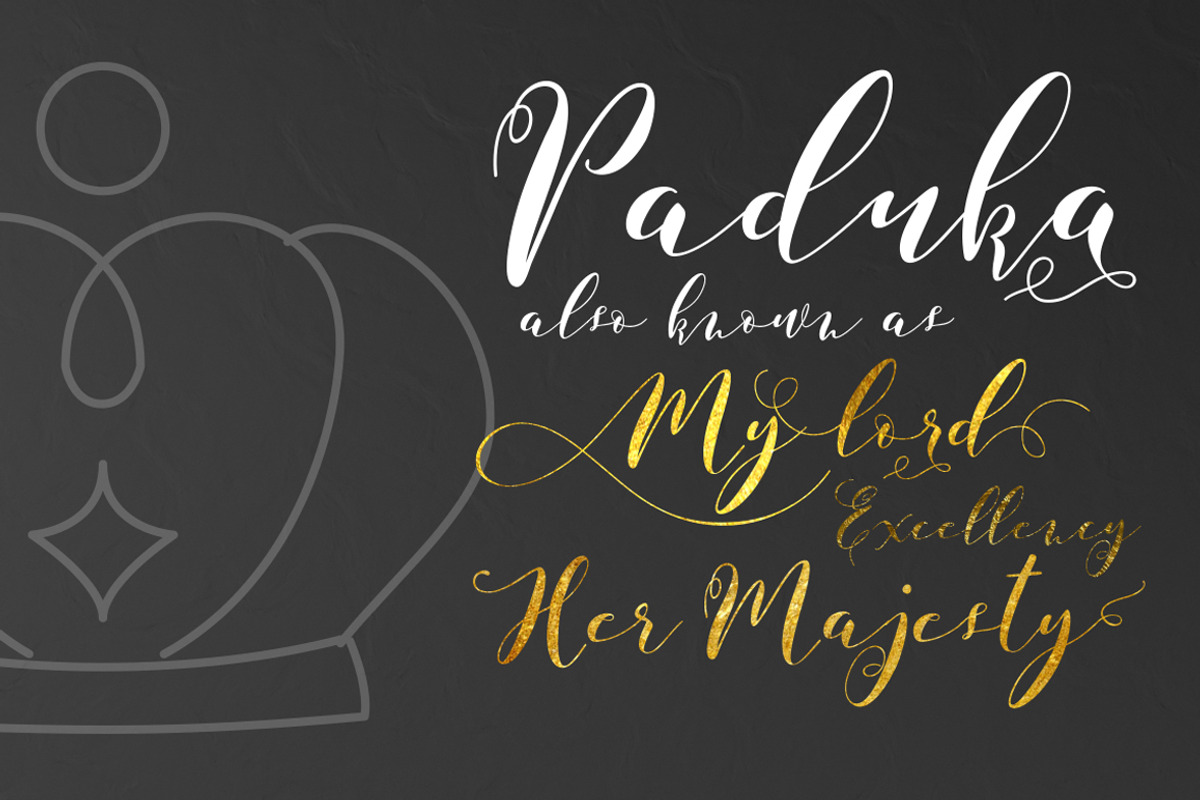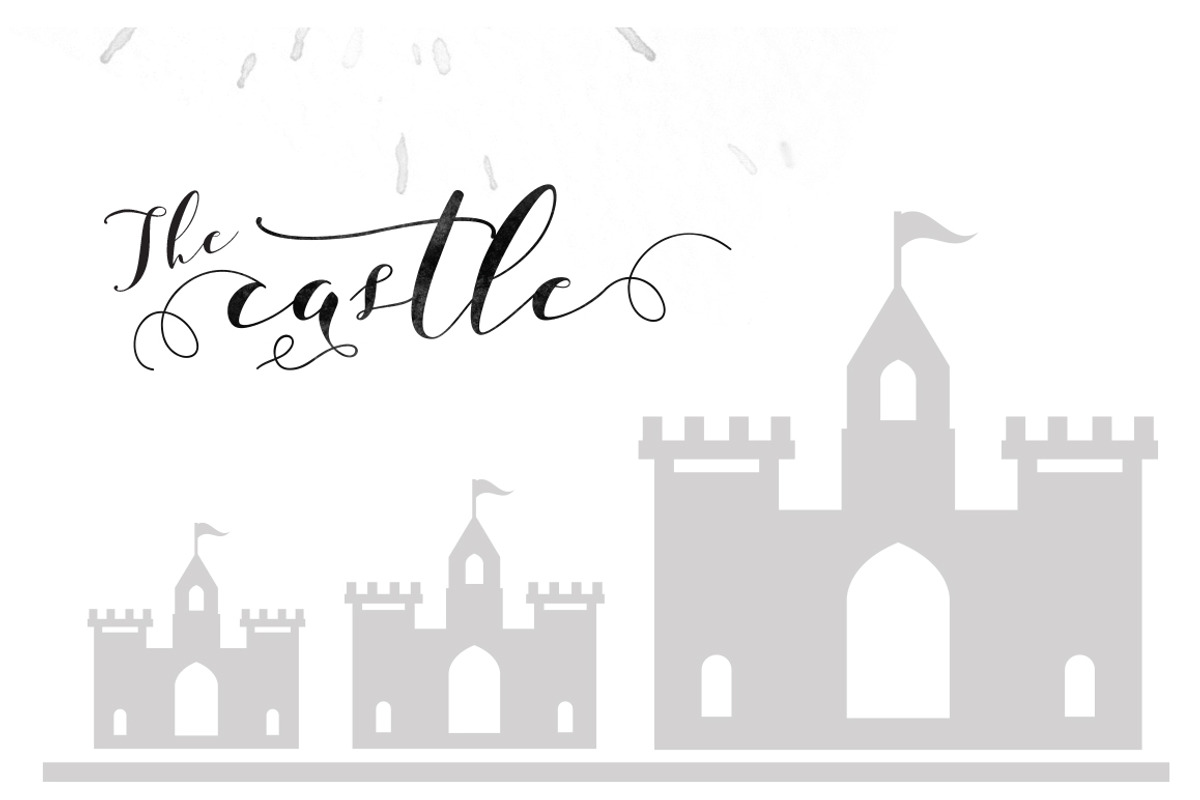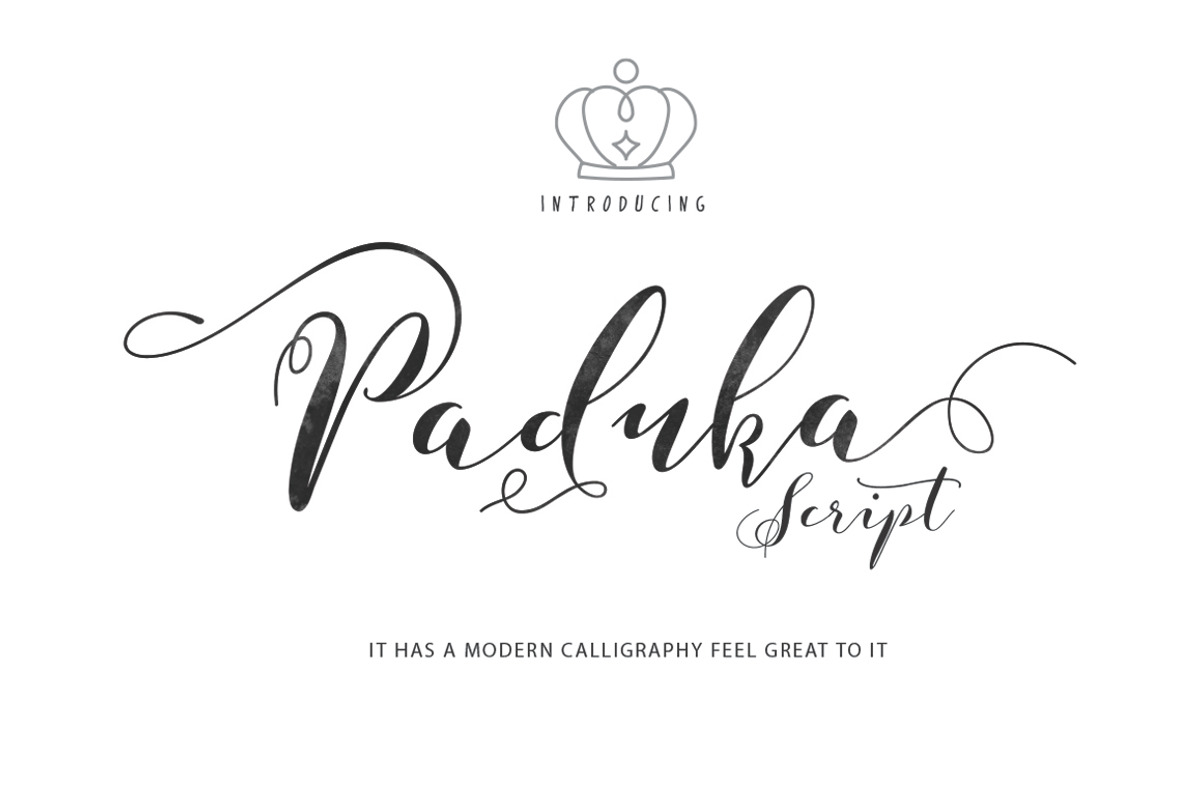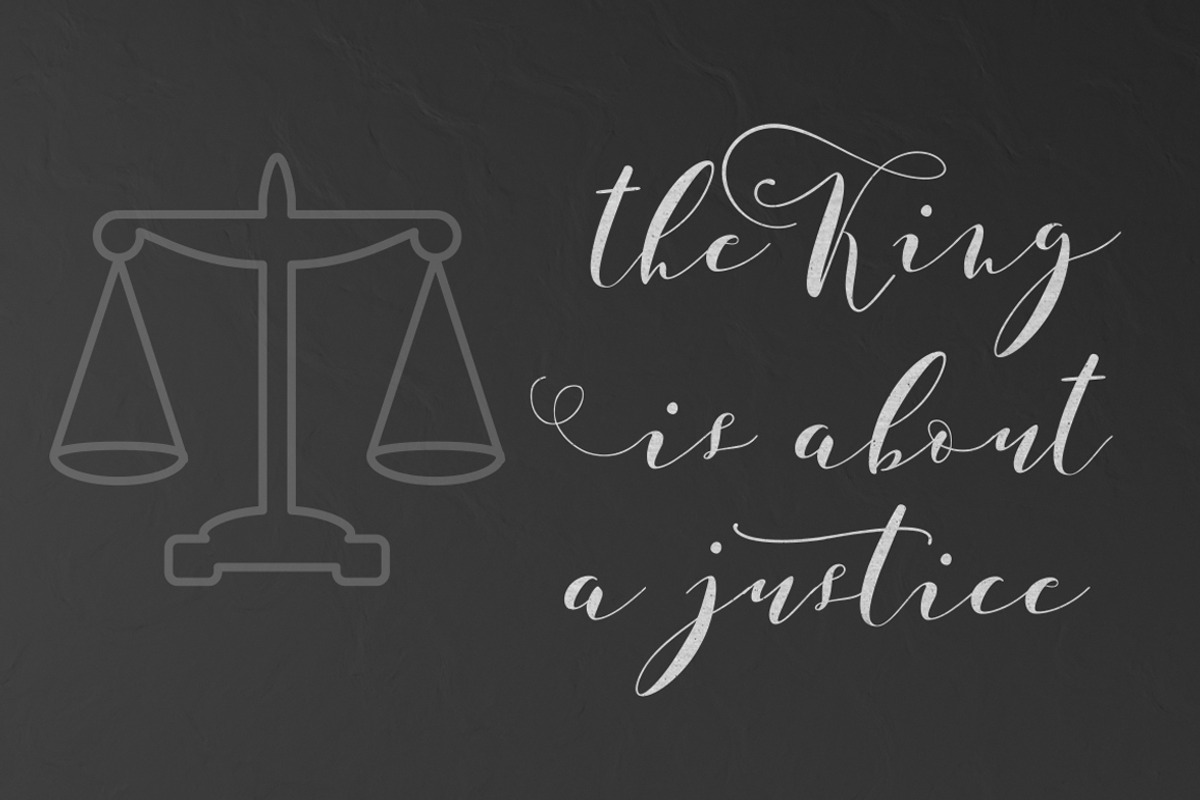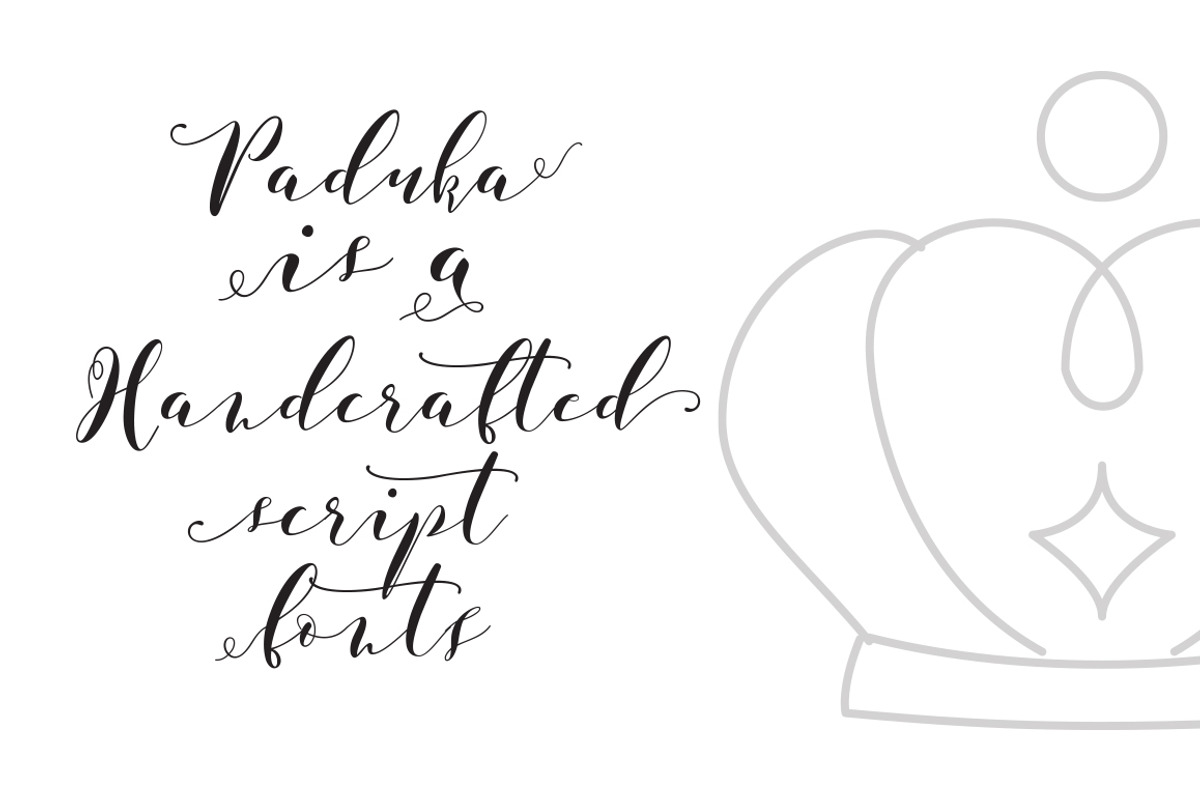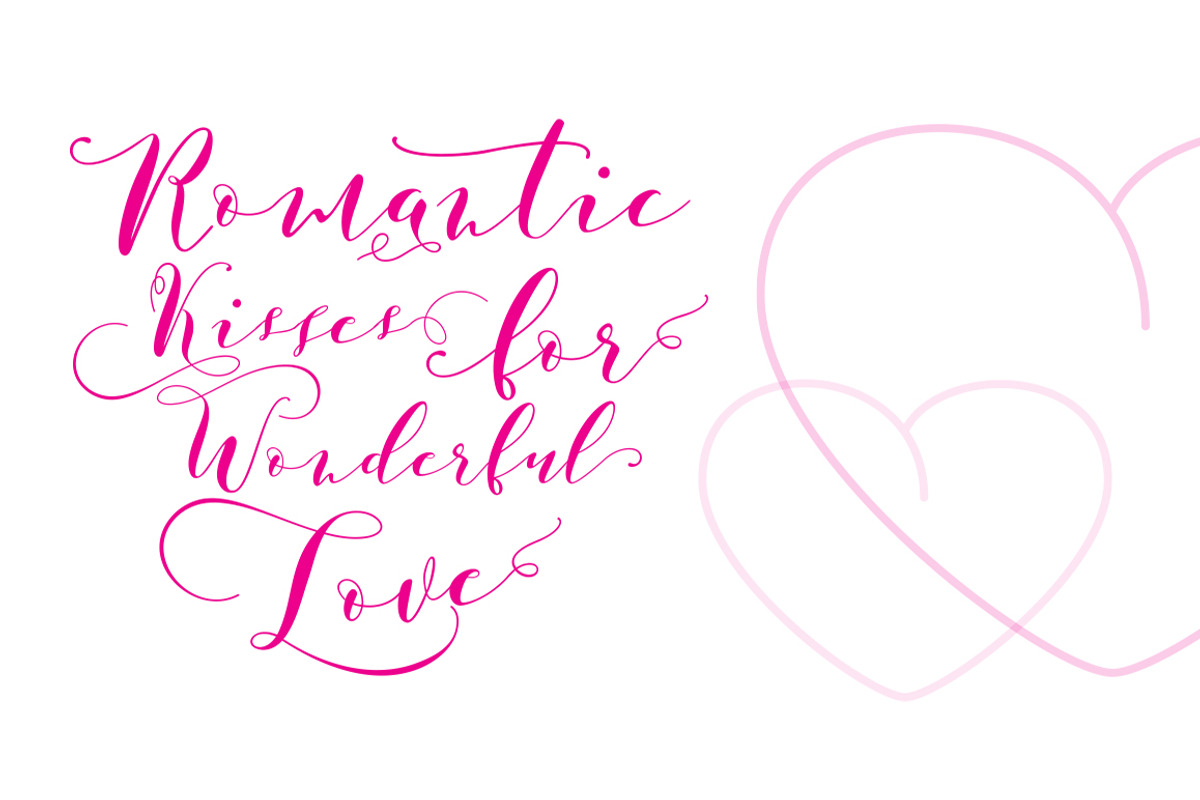
Paduka Script
Introducing Paduka Script, Modern Smooth Calligraphy Typeface.
471 glyphs included, with swashes alternative characters, suitable for any design needs, modern design, branding, stationery design, blog design, modern advertising design, invitation, wedding, special events, any lettering needs and more, for commercial use or personal use. Paduka Script is available for any printing needs, desktop, print on demand, video design, blog header image, or designing a commercial product for reselling.